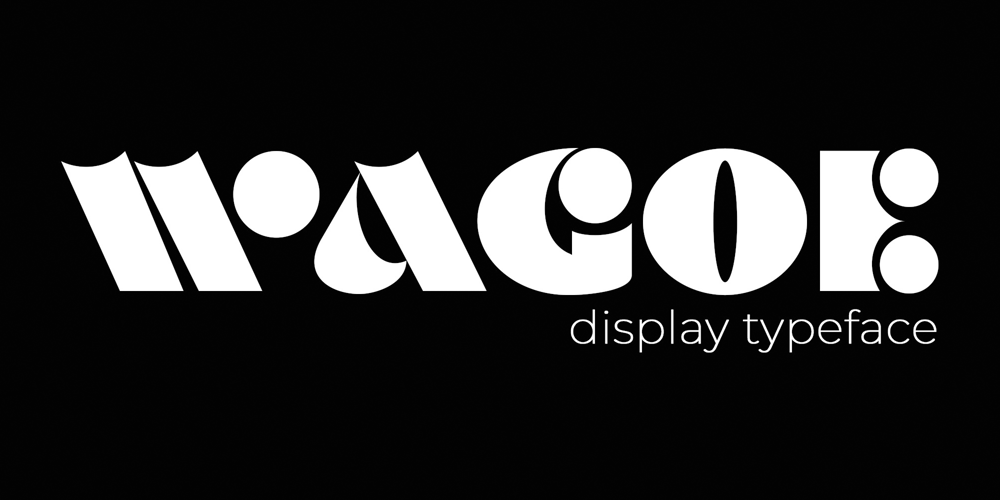
Wagoe
Wagoe font
Wagoe Font Family was designed by Intan Driyo and published by Onje Studio. Wagoe contains 1 styles and family package options. WAGOE | Quirky and BoldWagoe is a modern approach to the classic Motter Ombra by Othmar Motter. Most characters are remodeled to make them more roundish, not too stiff, but still look sharp enough. Its bold nature makes it ideal for your headlines, brand, or layout design.—————————————————————Features: Uppercase & Lowercase Numerals – Symbols – Punctuations Accents (Multilingual characters)